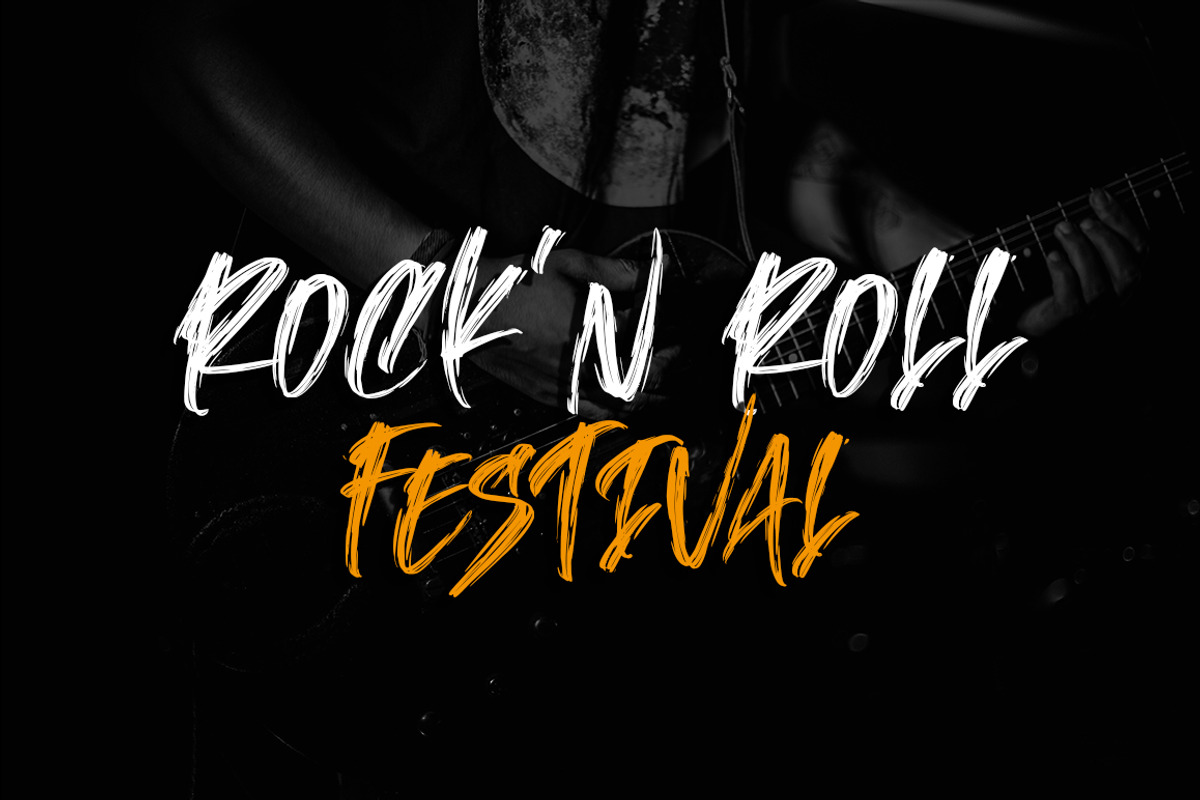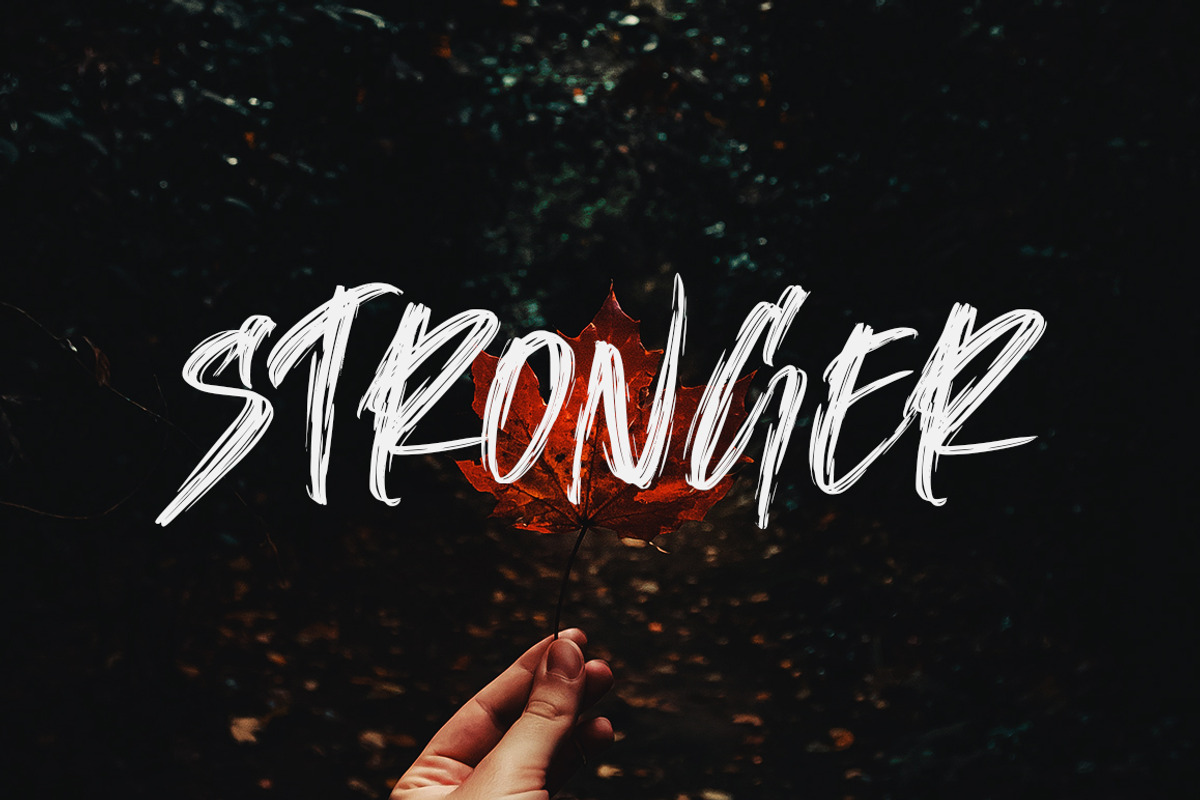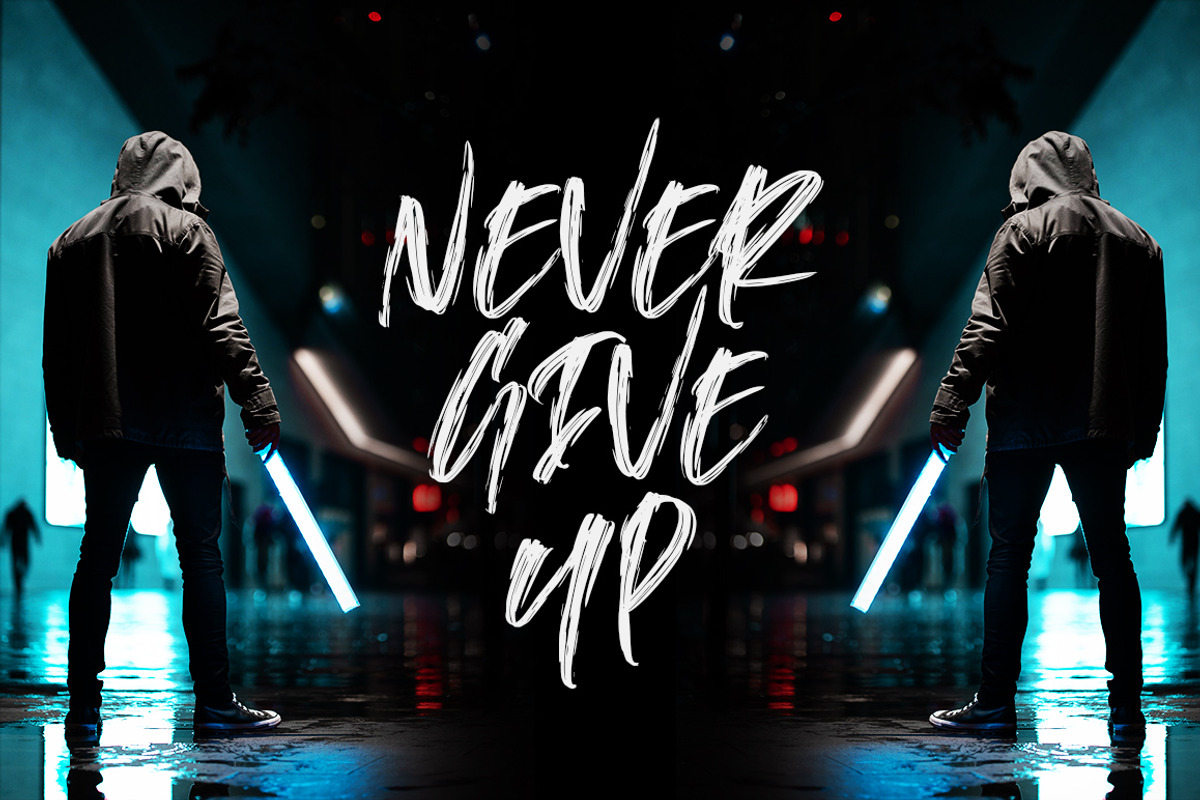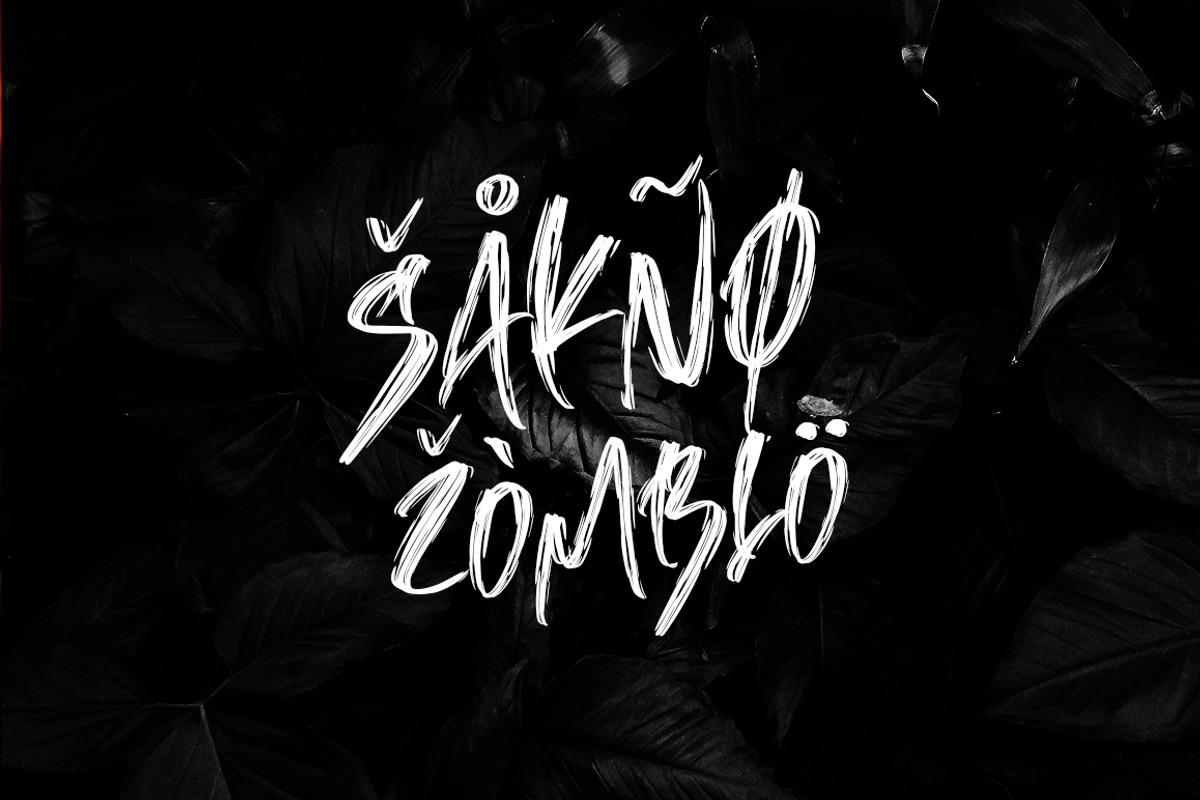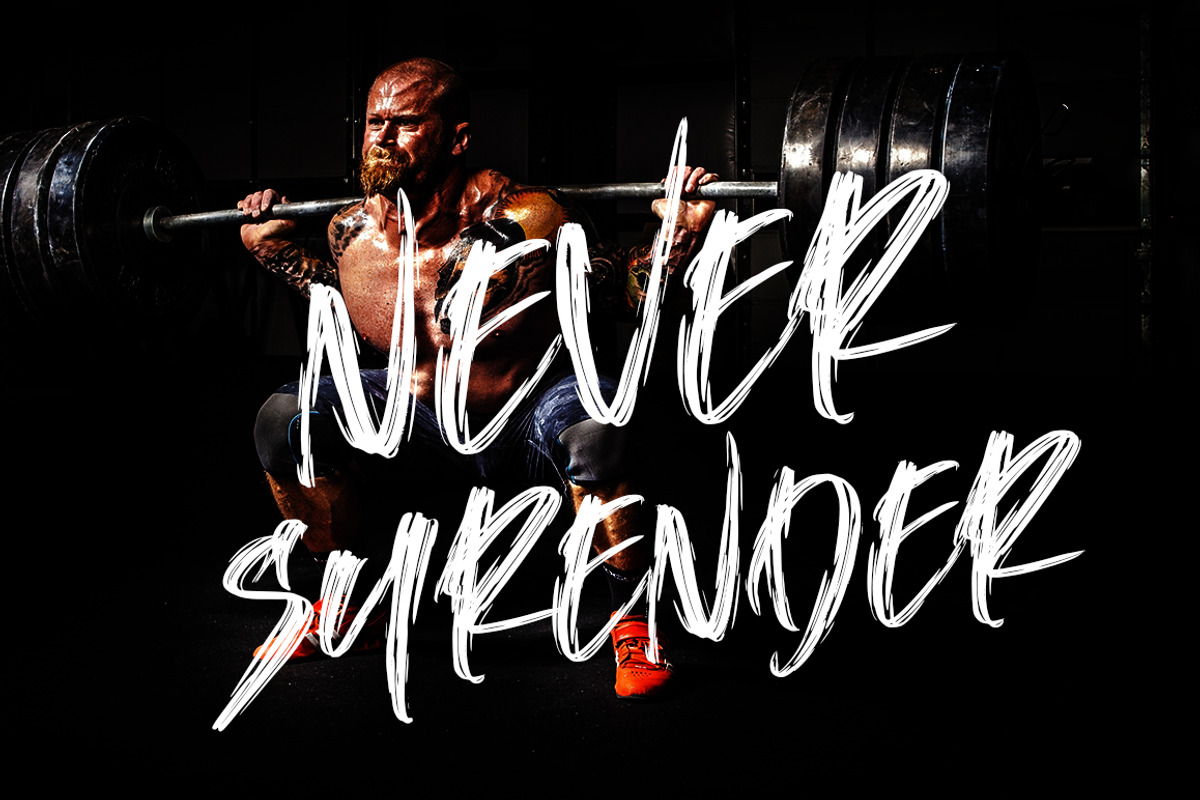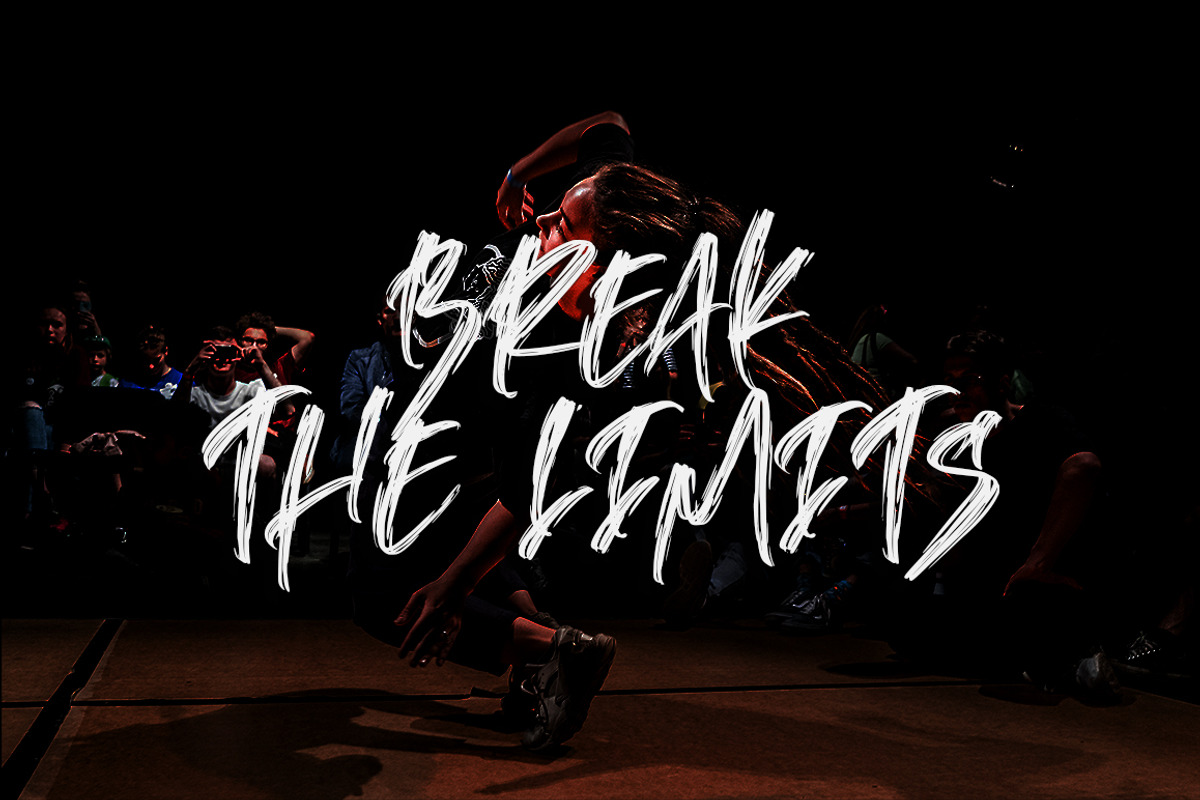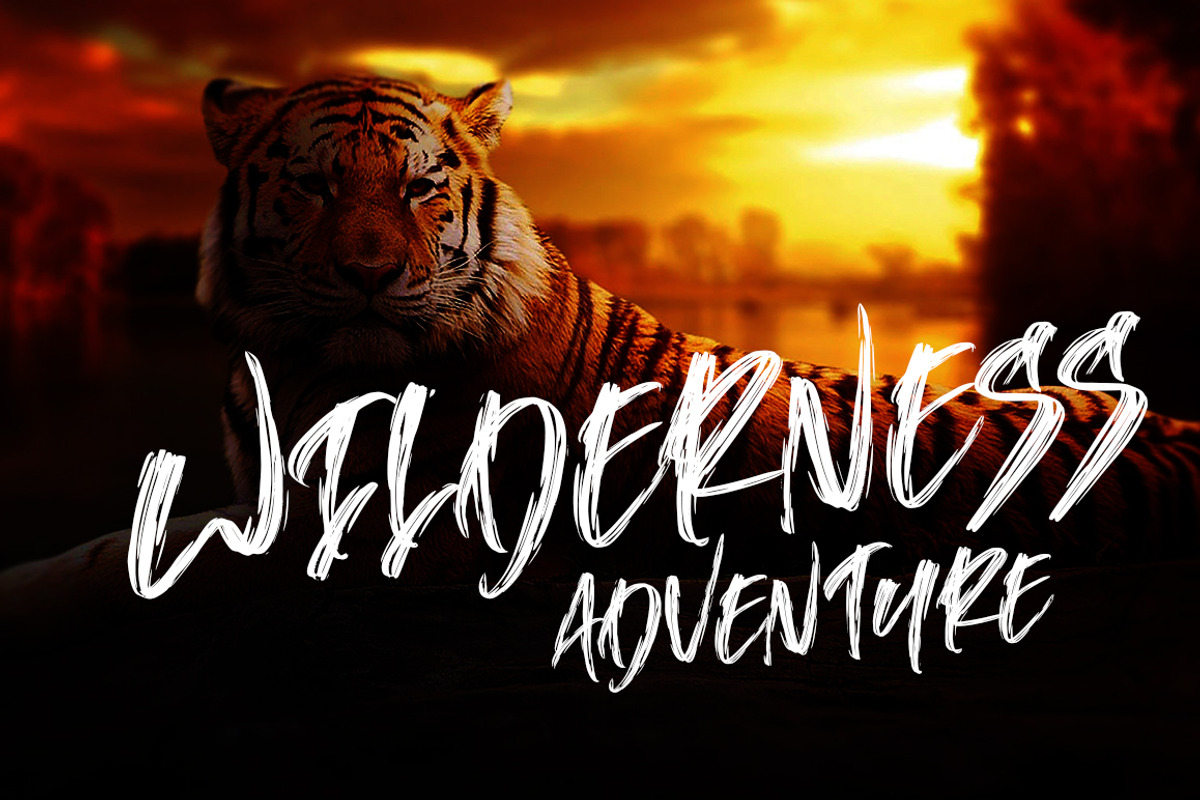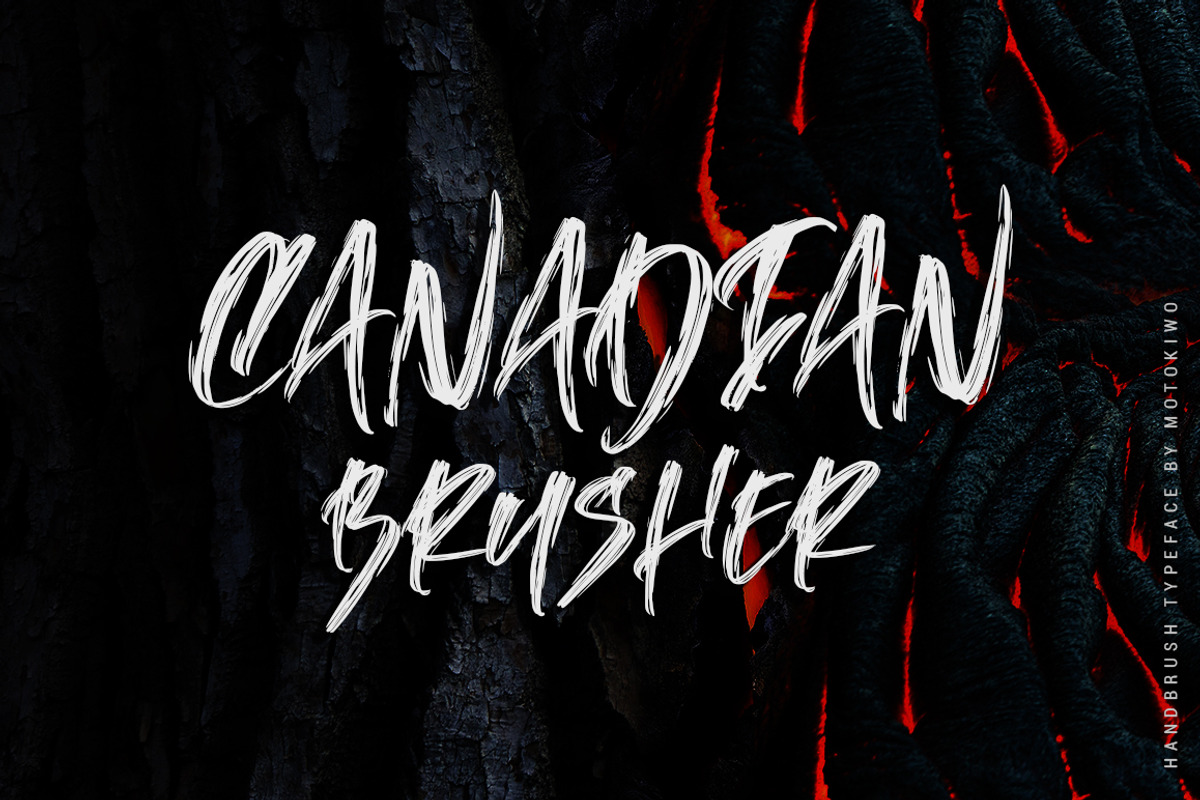
Canadian Brusher - Hipster Typeface
Canadian Brusher, hipster Hand-brush display font with stunning characters and texture. It’s all caps with numeral & punctuation and standard multilingual support. Very cool for youth generations project.
- Canadian Brusher, hipster Hand-brush display font with stunning characters and texture.
- It’s all caps with numeral & punctuation and standard multilingual support.
Canadian Brusher - Hipster Typeface by Motokiwo fits naturally into Branding, posters, packaging, typography.